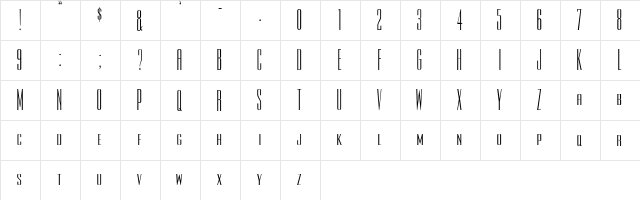
Framingham Regular
Design Context for Framingham Typeface
Framingham offers clean, dependable letterforms without strong stylistic allegiance, making it a practical choice for designers who need flexibility.